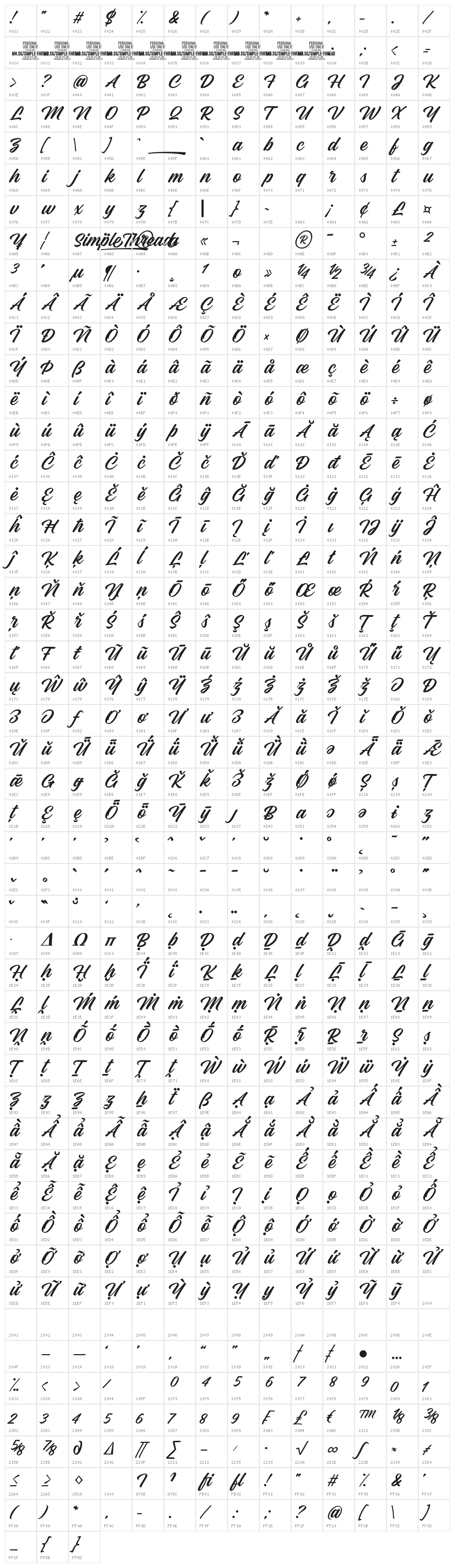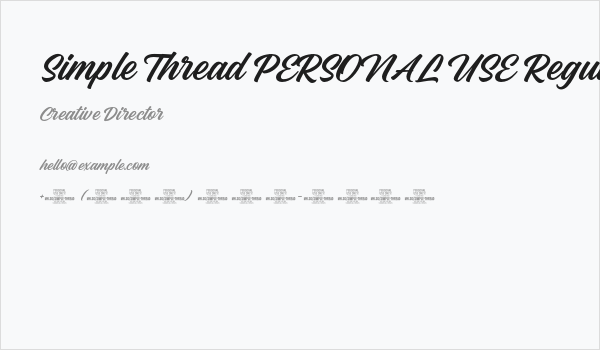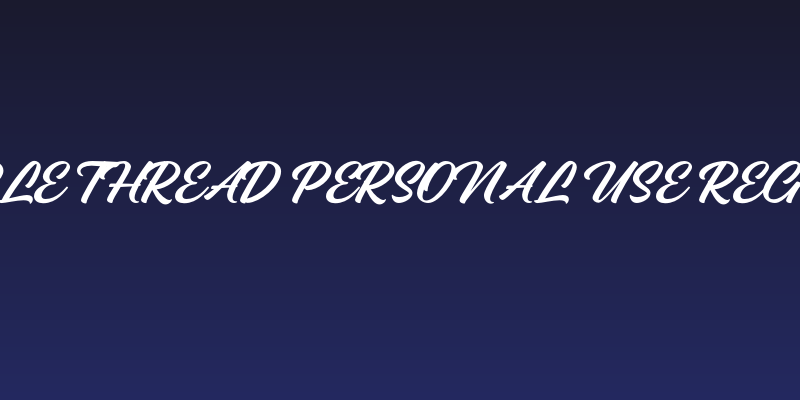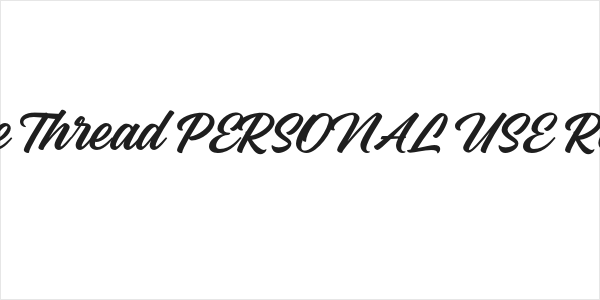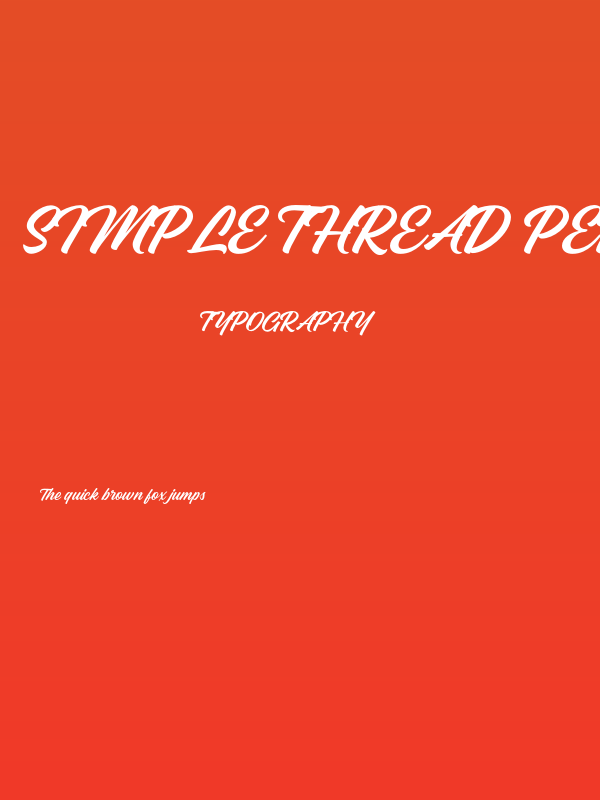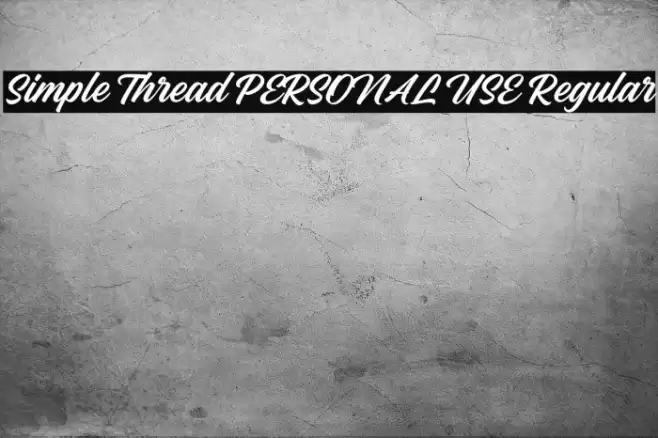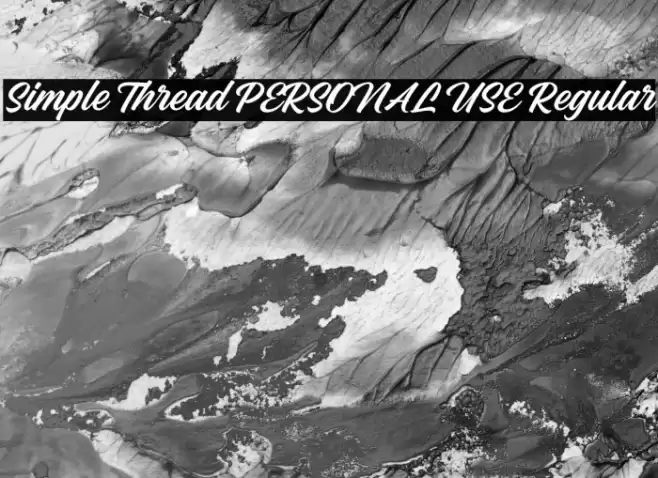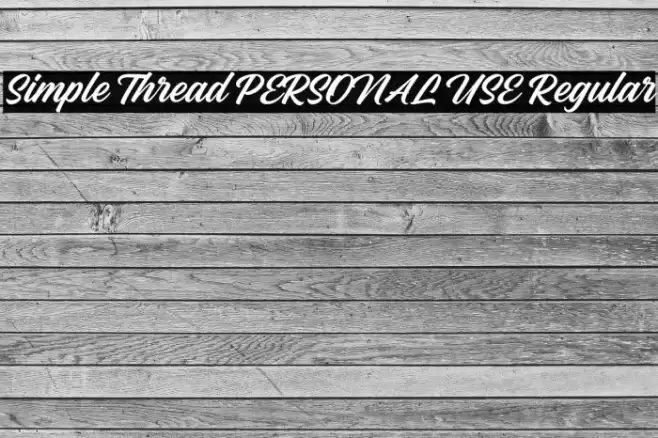
Simple Thread PERSONAL USE Regular Font
Simple Thread PERSONAL USE Regular Description
This font features a bold, cursive style with smooth, flowing lines that give it a dynamic and elegant appearance. The uppercase letters are slightly slanted, adding to the sense of movement, while the lowercase letters maintain a consistent flow, enhancing readability. The characters are closely spaced, creating a cohesive look that is both stylish and sophisticated. The font includes a full set of uppercase and lowercase letters, numbers, and a variety of special characters, making it versatile for various design needs. Its bold strokes and high contrast between thick and thin lines contribute to its striking visual impact.
| Overall Style | Elegant |
| Use Case | Logos, Invitations, Branding |
| Proposed Projects | Ideal for wedding invitations, branding projects, logo design, and elegant signage. |